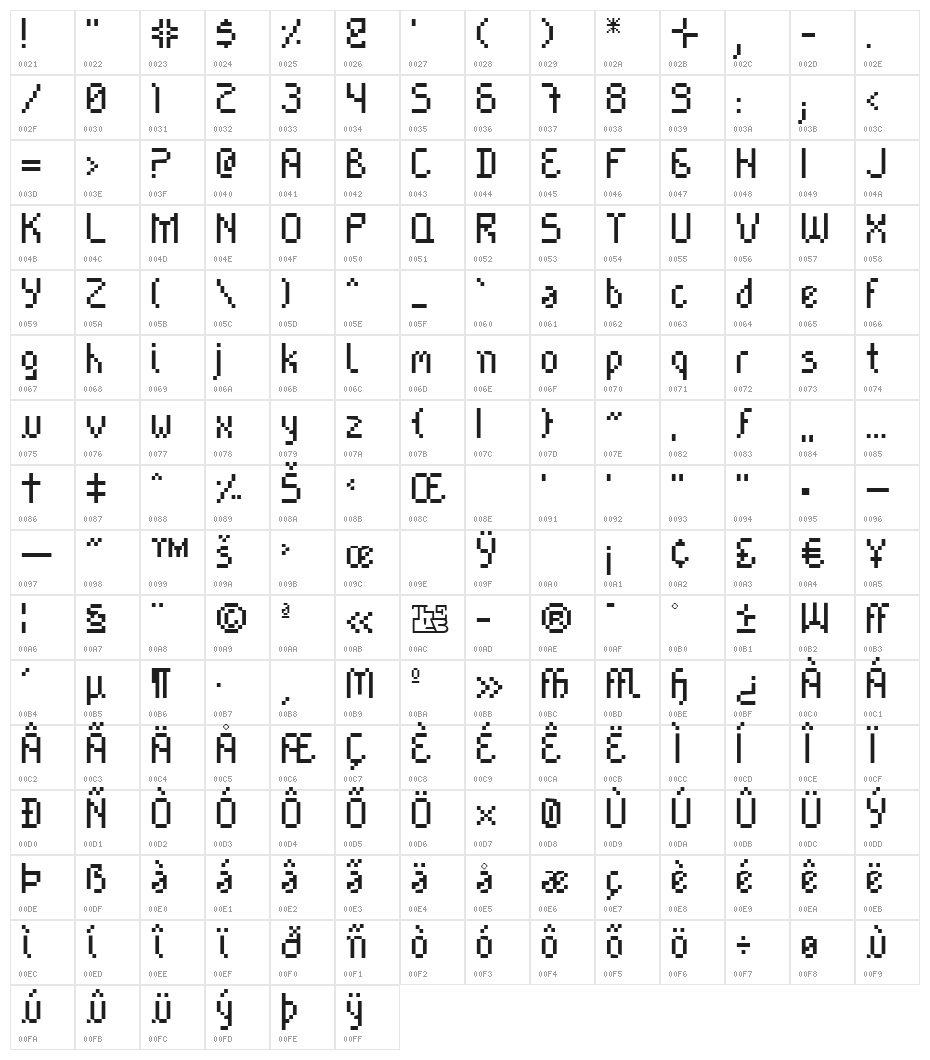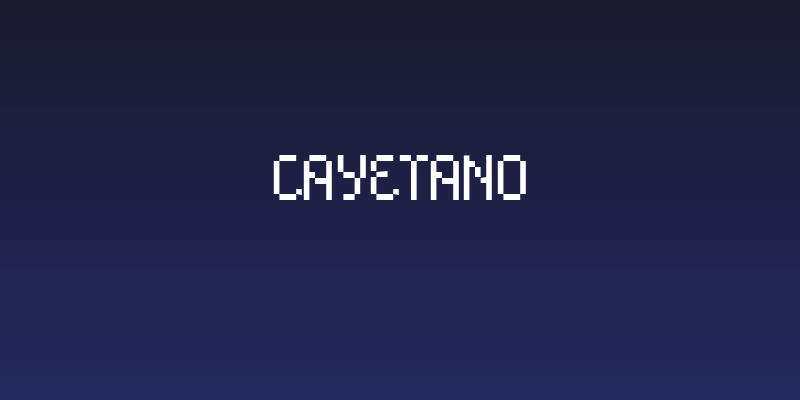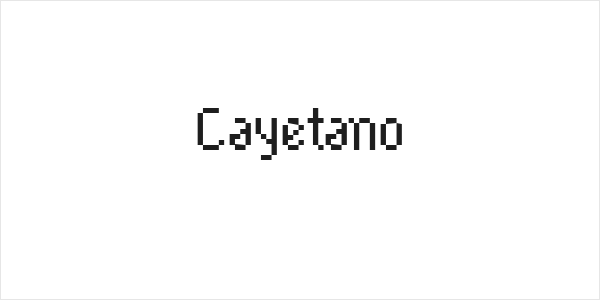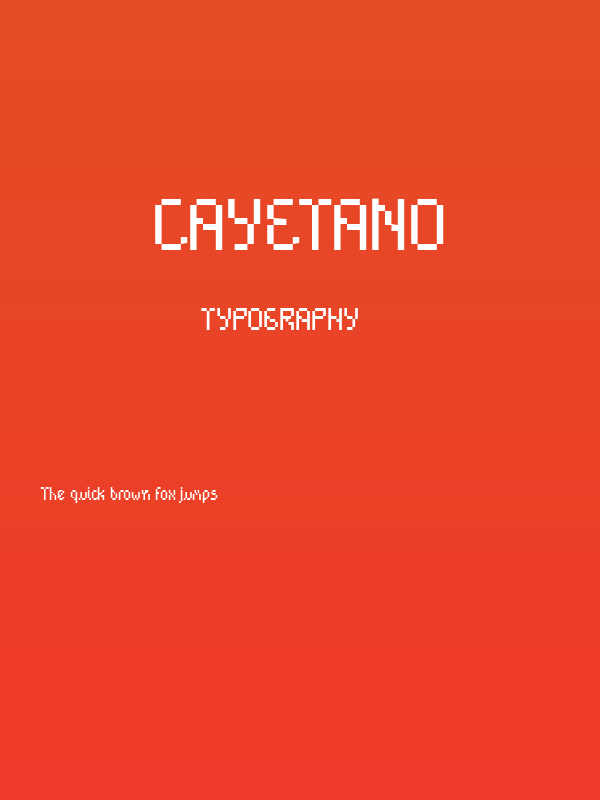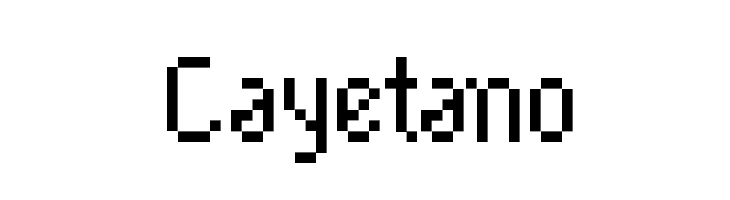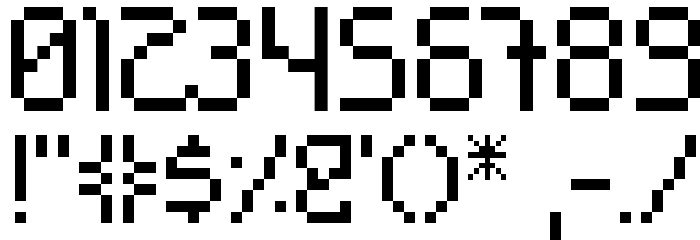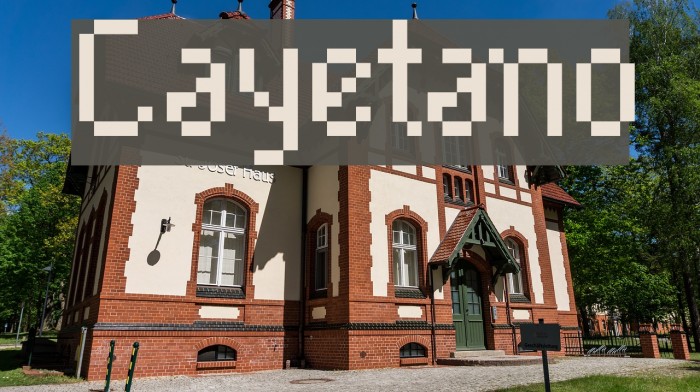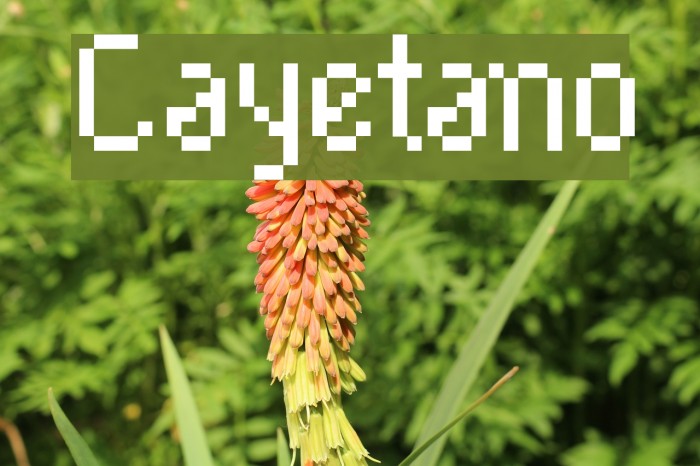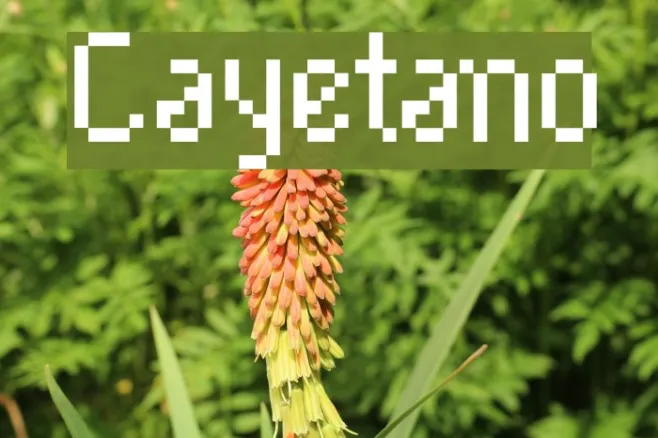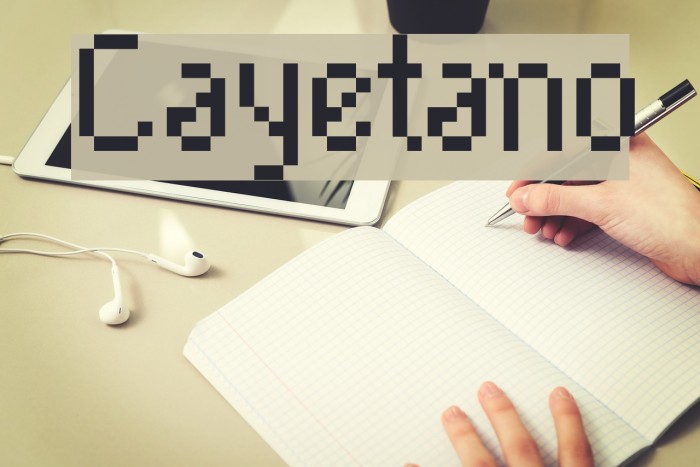
Cayetano Font
Cayetano Description
This font features a pixelated, blocky design reminiscent of early digital displays and video games. Each character is constructed with a grid-like precision, giving it a distinctly retro and technological feel. The uppercase and lowercase letters maintain a consistent height, contributing to a uniform appearance. Numbers and special characters follow the same pixelated style, ensuring cohesion across all glyphs. The font's geometric nature makes it highly legible at various sizes, though it is particularly striking in larger formats where its unique style can be fully appreciated.
| Proposed Projects | Ideal for projects that require a nostalgic or digital aesthetic, such as video game design, tech-themed posters, or retro branding. |